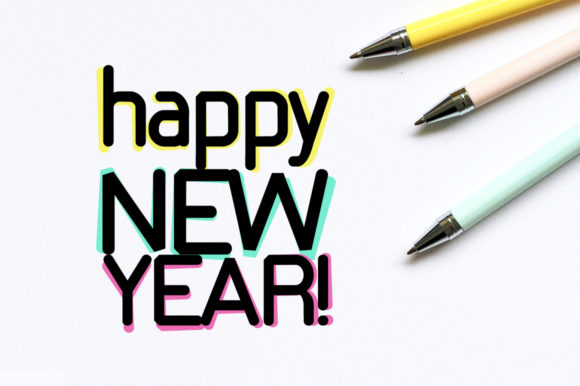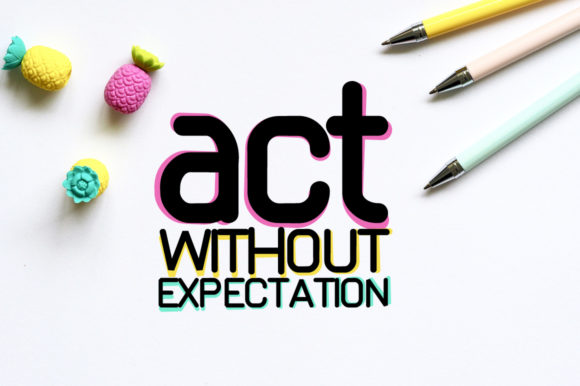
Introduction to Nice Year Font
Remember that moment when you’re working on a creative project and the perfect font just clicks? For designers, finding the right typeface can make all the difference between a good design and a great one. That’s where Nice Year Font comes in – a modern and cool display font with a clean vibe that’s sure to elevate your designs.
With its sleek lines and transparent background, Nice Year Font is a high-quality design resource that’s perfect for any creative project. Whether you’re working on a logo, social media graphics, or a website, this font is sure to add a touch of sophistication and style. And the best part? It’s available for free download, making it an invaluable resource for designers of all levels.
Key Features of Nice Year Font
- High-quality design: The Nice Year Font is a premium design resource that ensures your creative project stands out with its unique and elegant style.
- Transparent background: This feature allows for seamless integration with any background, making it perfect for various design applications.
- High-resolution design: The Nice Year Font is designed at 300 DPI, making it suitable for high-quality prints and digital applications.
- Unique characteristics: The font features a distinctive and modern style, with a touch of elegance that sets it apart from other fonts in its class.
Honest Review: Nice Year Font
I recently stumbled upon the Nice Year Font while searching for a unique design resource to elevate my creative project. I was excited to try it out and see how it would fit into my design workflow.
- High-quality glyphs and letterforms that make it perfect for headings and titles.
- A transparent background makes it easy to layer over images or other design elements.
- The font lacks a robust character set, which might limit its use for body text or lengthy content.
- The font family could benefit from more variation and weights to increase its versatility.
Overall, I’m impressed with the Nice Year Font. While it may have some limitations, it’s a solid design resource that can add a touch of elegance to your creative project. If you’re looking for a high-quality font to use for headings or titles, I’d definitely recommend giving it a try.
Introduction to Nice Year Font
Nice Year Font is a high-quality design resource perfect for any creative project. With a transparent background and clean design, it’s ideal for adding a professional touch to your work. You can download it for free and use it in various applications.
Nice Year Font is perfect for:
- Social media graphics and ads
Tips for Getting the Most Out of Nice Year Font
To get the most out of Nice Year Font, try:
- Combining it with other high-quality design resources
- Experimenting with different font
Alternatives to Nice Year Font
Alegreya Sans is a high-quality sans-serif font designed by Juan Pablo del Pino. It features a clean and modern design, making it perfect for creative projects that require a professional and elegant look. Alegreya Sans is available for free download, making it a great design resource for designers.
Compared to Nice Year Font, Alegreya Sans has a more sophisticated and refined look, making it suitable for high-end creative projects. It also has a wider range of weights and styles, allowing for more flexibility in design.
Q: Does the Nice Year Font have a transparent background?
Yes, the Nice Year Font features a transparent background, making it ideal for creative projects that require a clean and minimalist look. This also allows for easy layering and blending with other design elements.